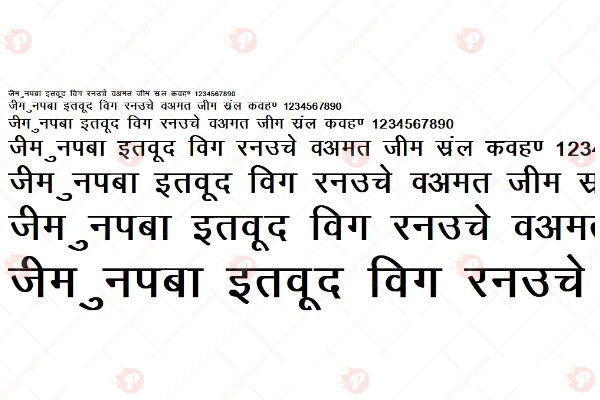
The Devlys Bold Font is a strong and stylish typeface, perfect for headlines, posters, banners, logos, branding, and display typography. Its bold weight ensures maximum impact and visibility, making your designs stand out with confidence.
Ideal for digital and print projects, Devlys Bold adds personality and strength to every creative endeavor.
Style: Bold / Strong / Display Typeface
Perfect for: Headlines, Posters, Banners, Logos, Branding & Display Typography
Make your designs powerful with the bold and stylish Devlys Bold Font.
| Optimum Size | Large (Display / Poster) |